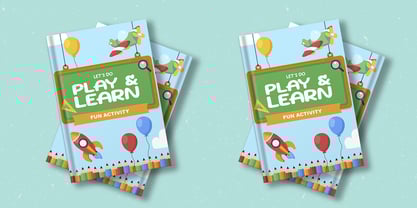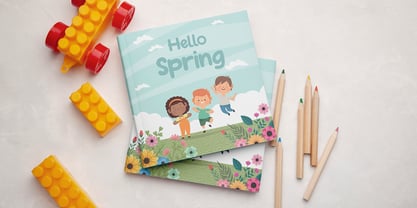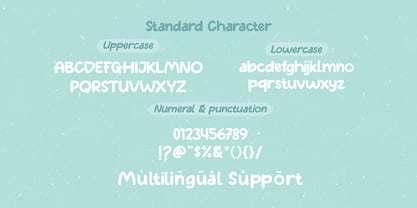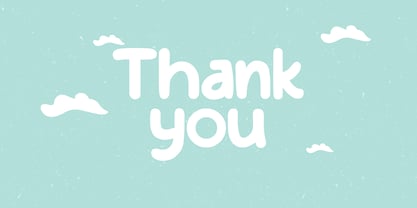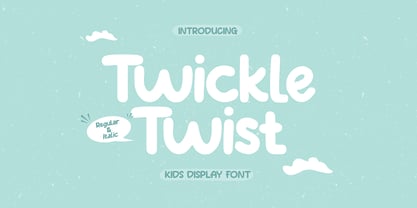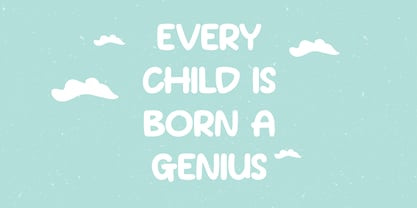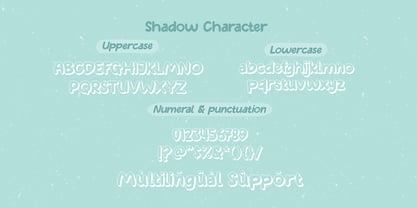
Twickle Twist
La familia tipográfica Twickle Twist fue diseñada por Sipanji y publicada por Sipanji21. Twickle Twist contiene 4 estilos y opciones de paquete familiar.
Twickle Twist is a monoline handwritten font with a cute and playful personality, perfect for kid-friendly and cheerful designs. Available in regular and italic styles, this font features smooth, flowing strokes that mimic natural handwriting, making it ideal for children’s books, greeting cards, school projects, branding, and creative crafts.
With its soft curves and charming letterforms, Twickle Twist adds a fun and lighthearted touch to any project. Whether you're designing for stickers, logos, social media, or DIY crafts, this font brings warmth, joy, and a friendly vibe to your typography.